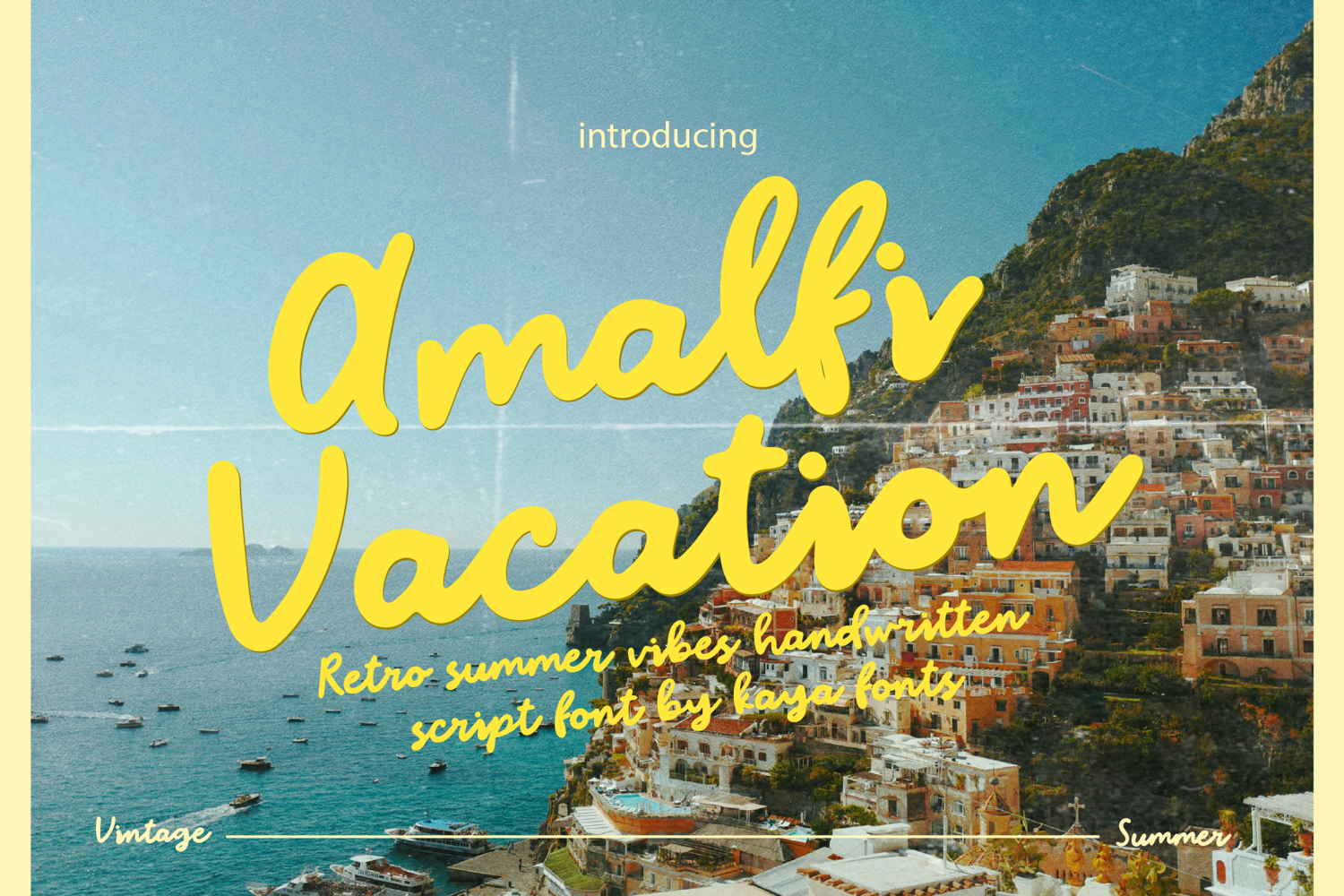
Created By Kaya Fonts
Amalfi Vacation Bold Script Font Coastal Summer Retro Script
Amalfi Vacation is a bold handwritten script inspired by the golden charm of Italian summers. With expressive strokes and a free-spirited retro vibe, this font brings sunshine and style to every design. From dreamy travel quotes to wedding invites, branding, or sunny merch graphics, every letter flows with warmth, personality, and vintage flair.
• Retro T-shirts, stickers & merch
• Summer branding & packaging
• Wedding invitations & stationery
• Travel blogs, quotes & postcards
• Café menus, signs, logos, and more!